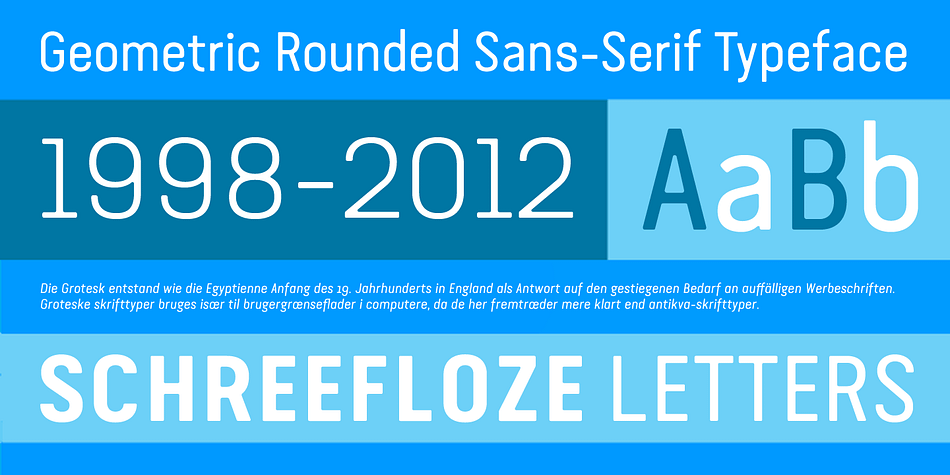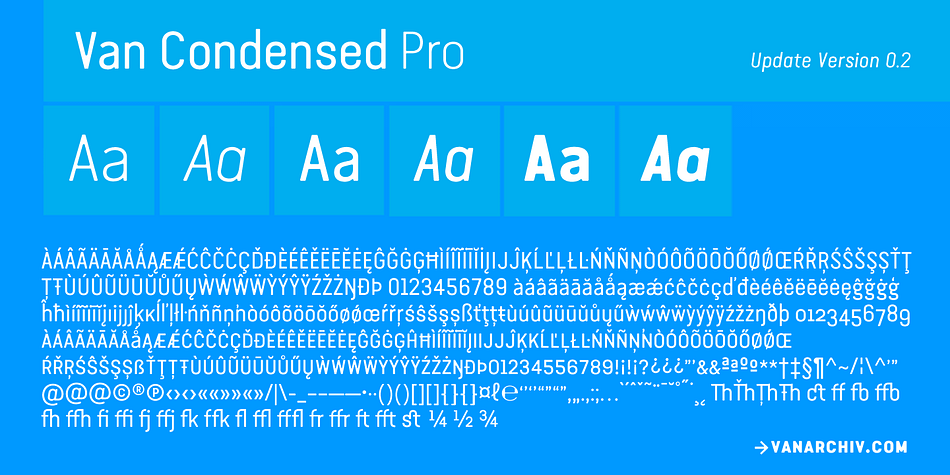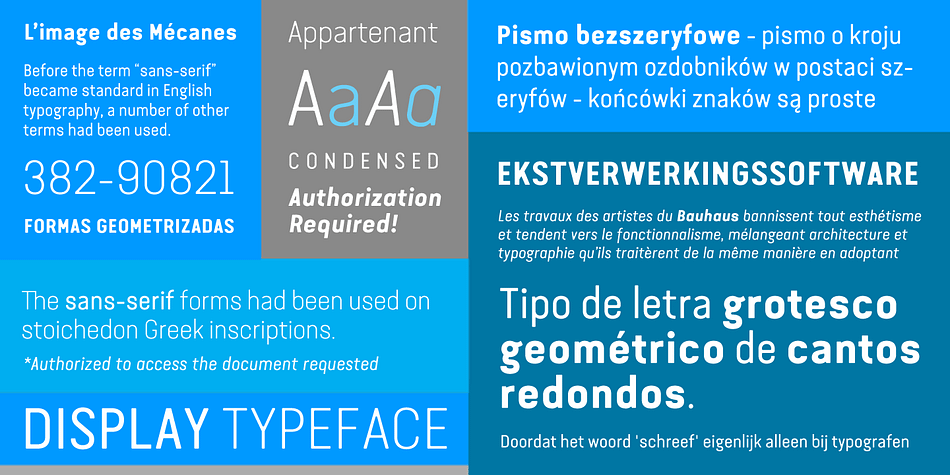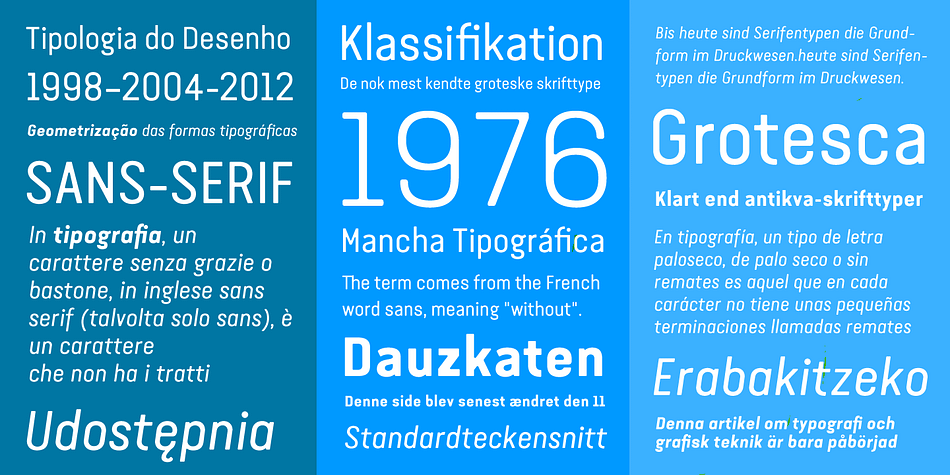
Designed by Ricardo Santos, Van Condensed is a dingbat and sans serif font family. This typeface has seven styles and was published by Vanarchiv.
The Van Condensed font family is a display geometric sans-serif, which contains three weights: Light, Regular, Bold, all of them with an oblique version.
The letters have a low contrast and the x-height is medium, the ascenders and descender strokes are long which improve reading. This letters don’t have any stress between thick and thin strokes because they have a geometric and linear structure with round corners.
During 2015 this typeface was upload to version 0.3 with new font features: Cyrillic and Greek characters, different figures, more ligatures, small caps, diacritic characters, superior and inferior script.
The associated Dingbats (included in the family package) complement this family and have the same round treatment like the typeface.